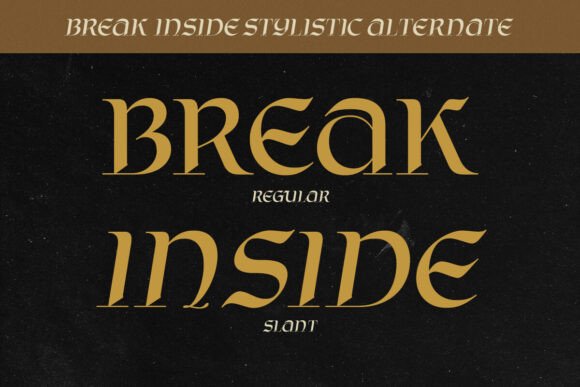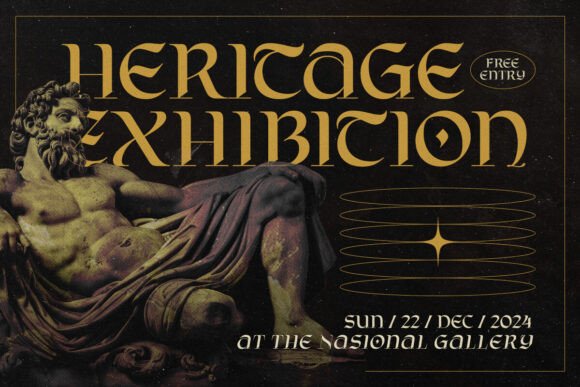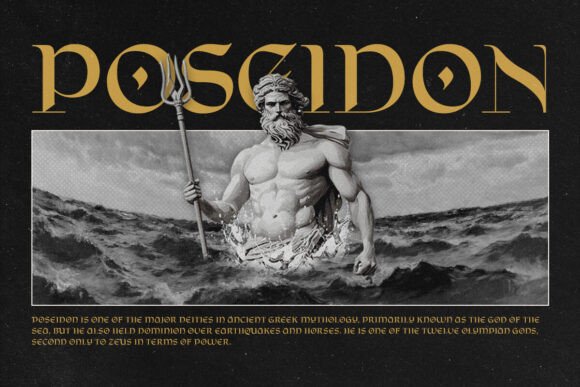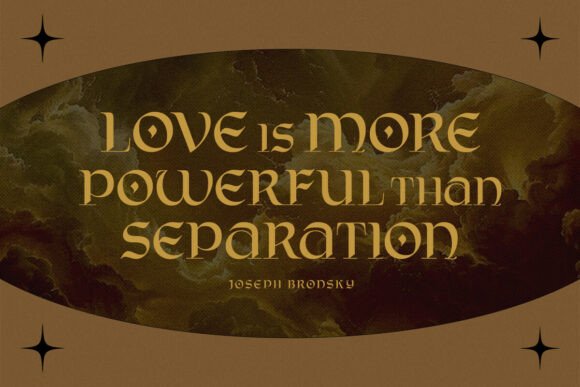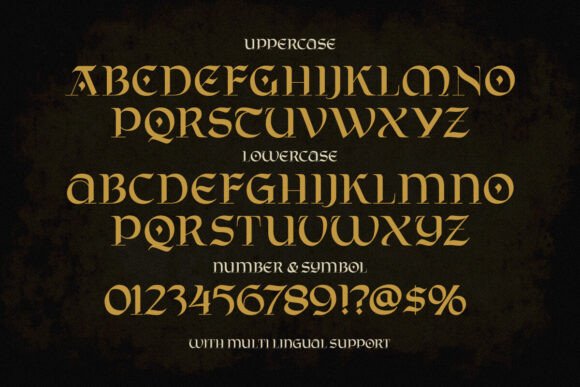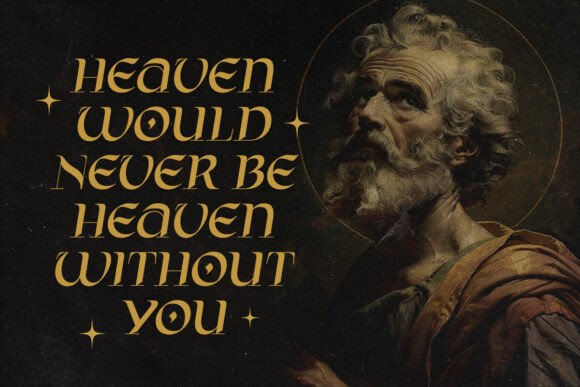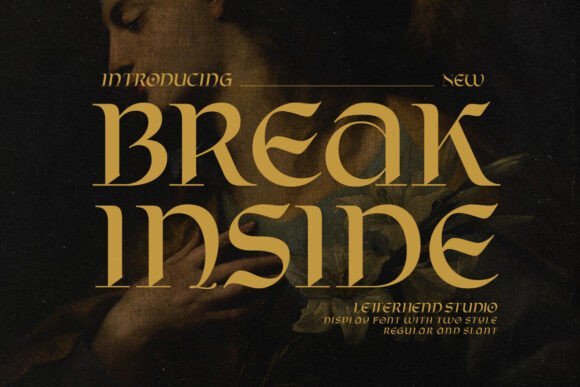
Breaking the Mold: Introducing Break Inside Font
Have you ever stared at a blank page, waiting for inspiration to strike? For designers, this moment can be a make-or-break experience. It’s the moment when creativity meets practicality, and the right tool can be the difference between a mediocre design and a masterpiece.
Enter Break Inside Font, a display serif font that’s about to change the game. With its sleek letterforms and modern aesthetic, this font is perfect for designers who want to create a lasting impression. Whether you’re working on a logo, invitation, or magazine spread, Break Inside Font is the perfect addition to your design arsenal. Its versatility and sophistication make it a valuable asset for any designer looking to elevate their work.
Break Inside Font Key Features
• Unique Characteristics: Break Inside Font features a unique blend of modern and distressed elements, making it ideal for creating eye-catching and dynamic designs.
• Language Support: Break Inside Font supports a wide range of languages, including Latin, Cyrillic, and Greek scripts, making it a versatile choice for global designs.
• Kerning and Ligatures: The font includes advanced kerning and ligature pairs, ensuring smooth and professional-looking text rendering.
• Font Dimensions: The font’s dimensions are designed to be compact and efficient, making it suitable for use in digital and print media.
Break Inside Font Review
Overall, I found Break Inside Font to be an interesting and unique addition to the world of typography. ✨ One thing that stands out is its versatility – it can be used for both digital and print projects, making it a great choice for designers who need a font that can adapt to different mediums.
Another aspect that I appreciate is the font’s high contrast, which makes it perfect for headings and titles. The bold and sharp lines of Break Inside Font create a visually appealing effect that grabs attention. ✨ Additionally, the font’s range of weights and styles offers designers plenty of options to experiment with.
• ⚠️ Break Inside Font may not be the best choice for body text due to its high contrast and bold lines, which can be overwhelming for large amounts of text.
• ⚠️ Some users may find the font’s irregular shape and character forms to be distracting or difficult to read.
Overall, I think Break Inside Font is a great addition to any designer’s toolkit, but it’s essential to use it judiciously and consider the context in which it will be used. With its unique style and versatility, Break Inside Font is sure to add a touch of creativity to any project.
The Break Inside Font is ideal for:
• Creating a unique and eye-catching headline.
• Designing a custom logo or typography piece.
• Adding a touch of elegance to a presentation or document.